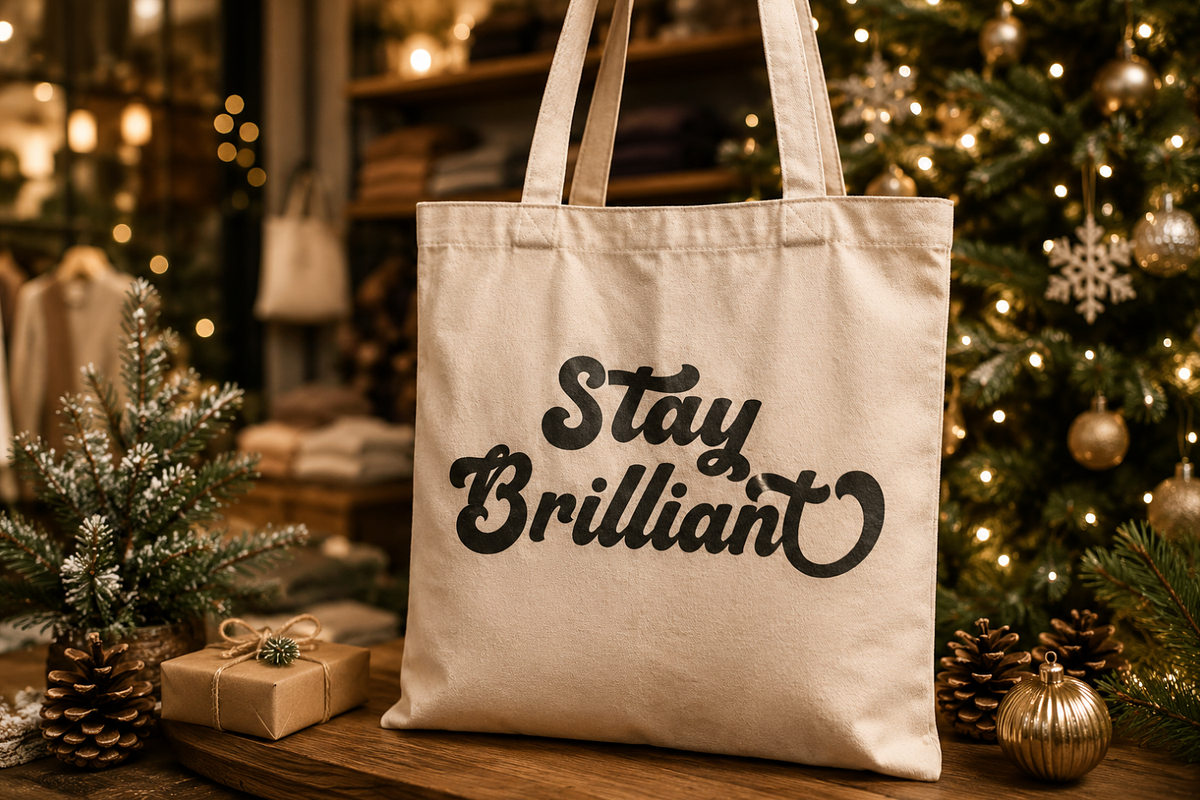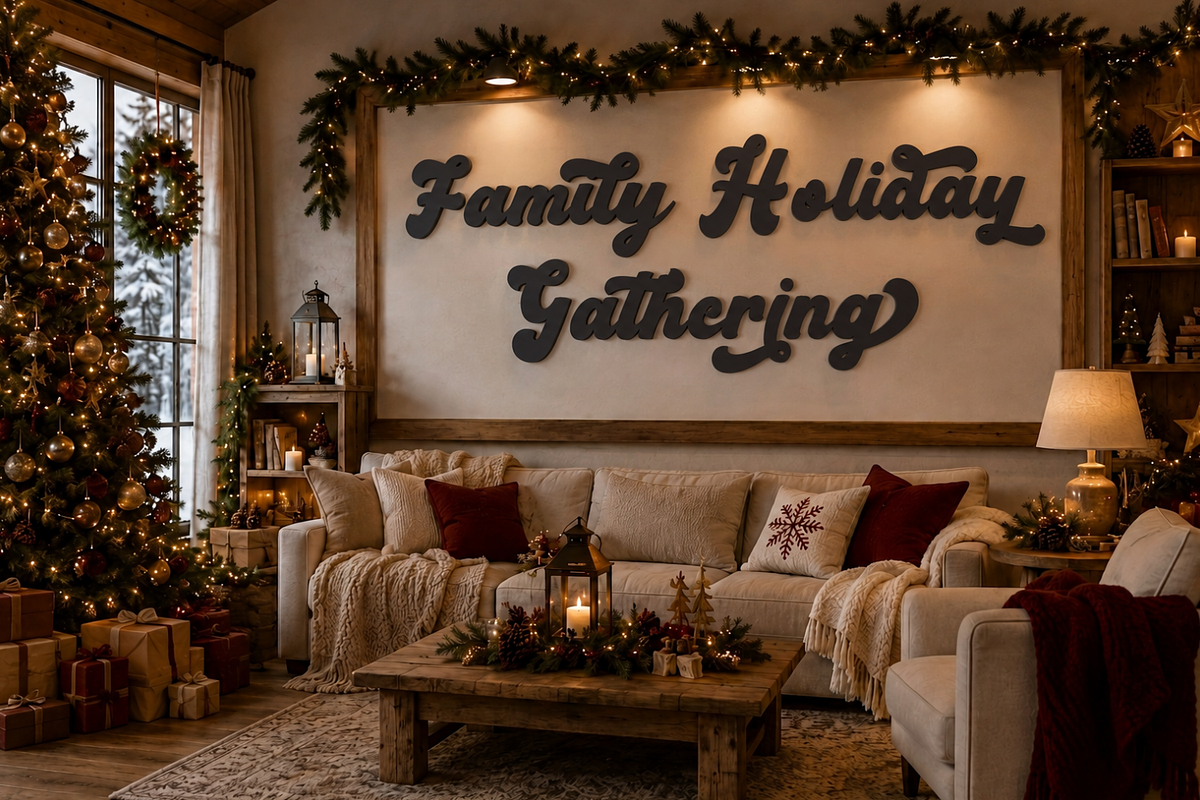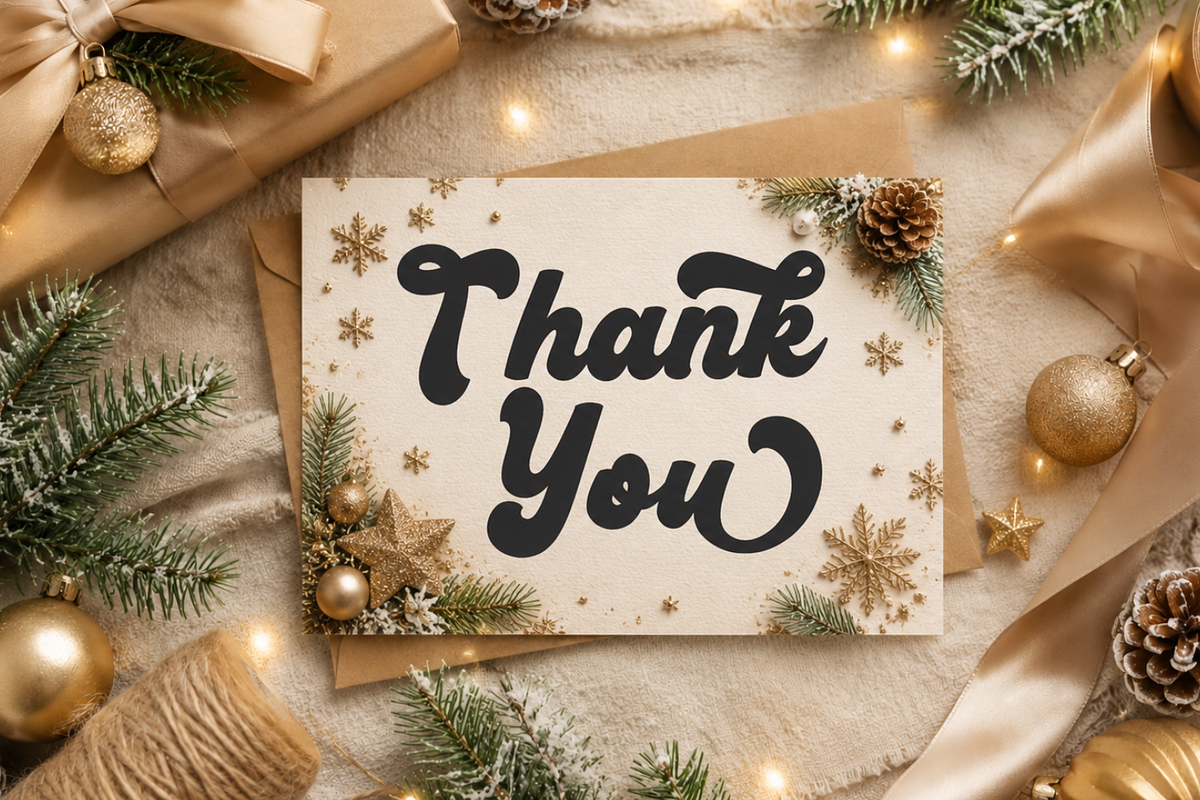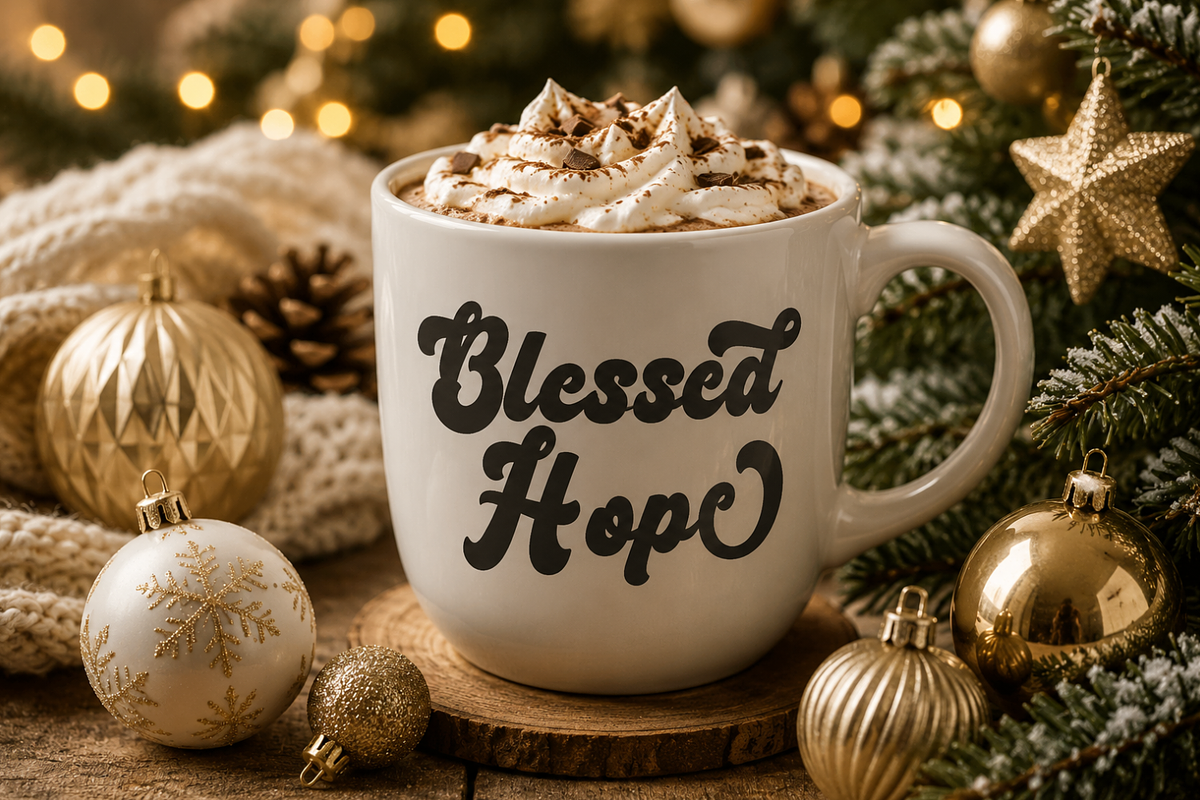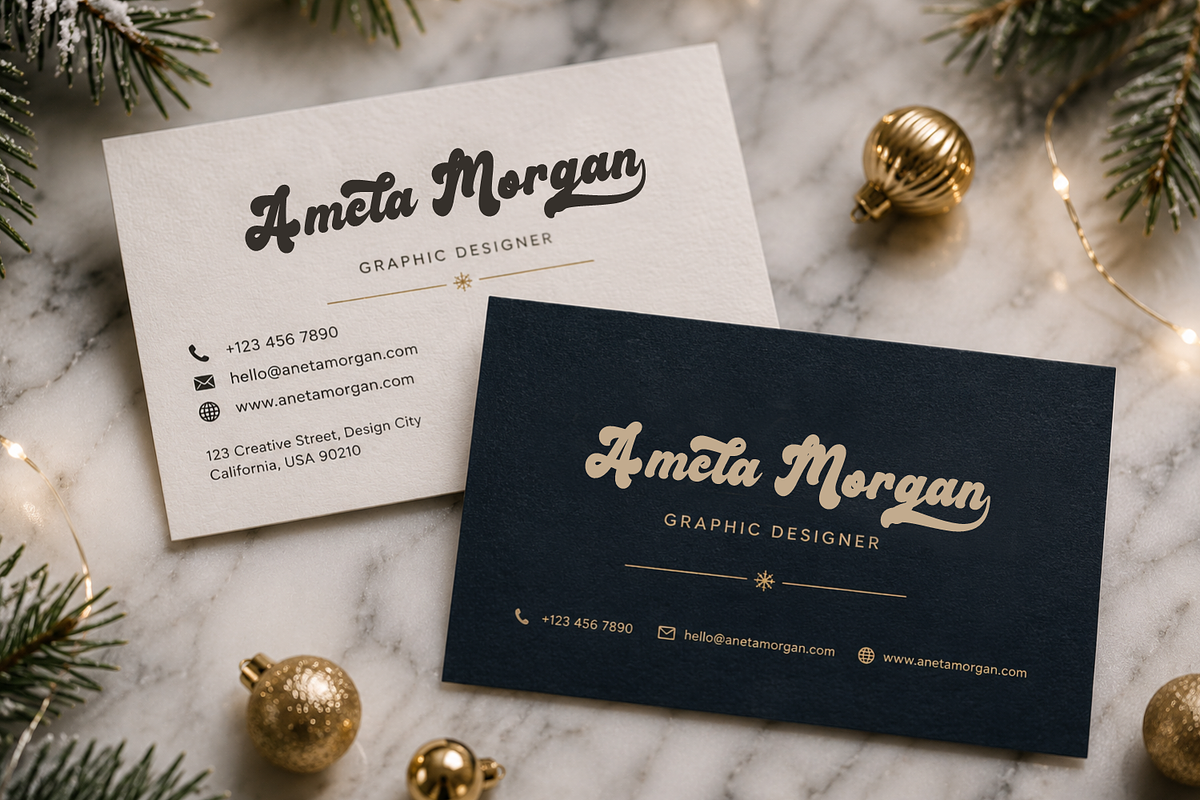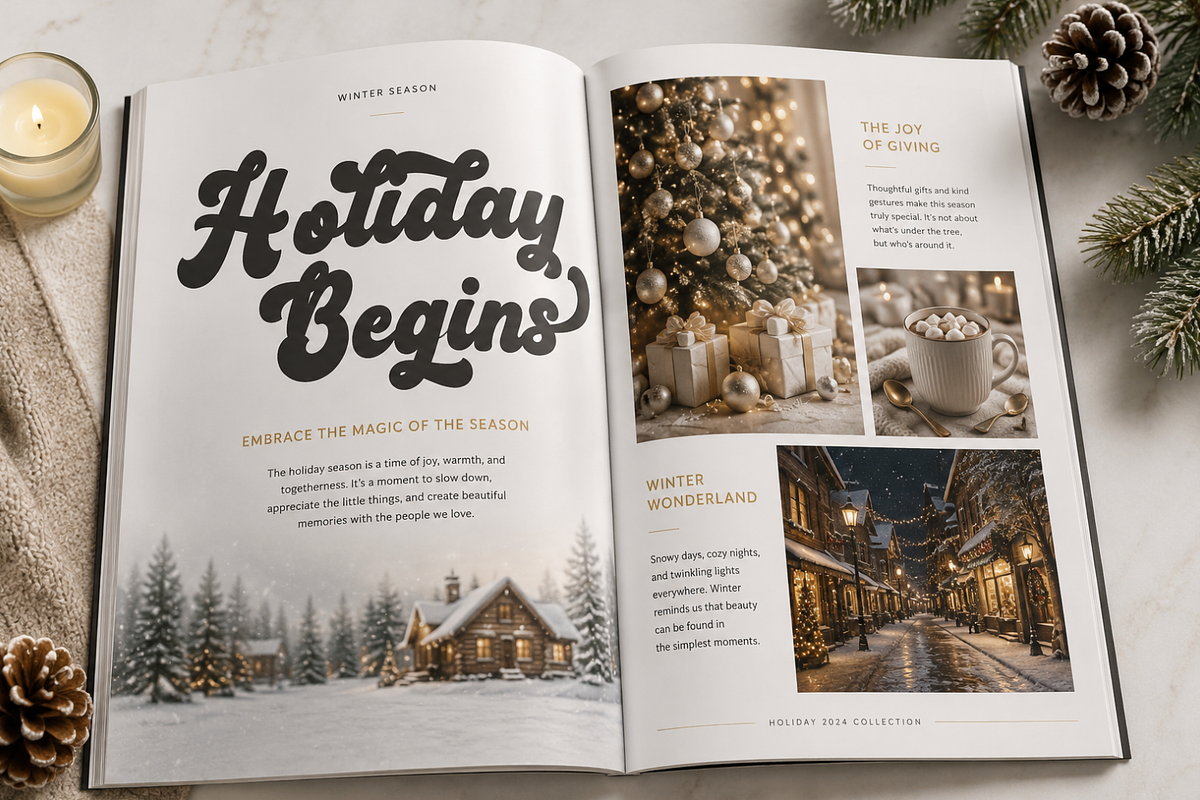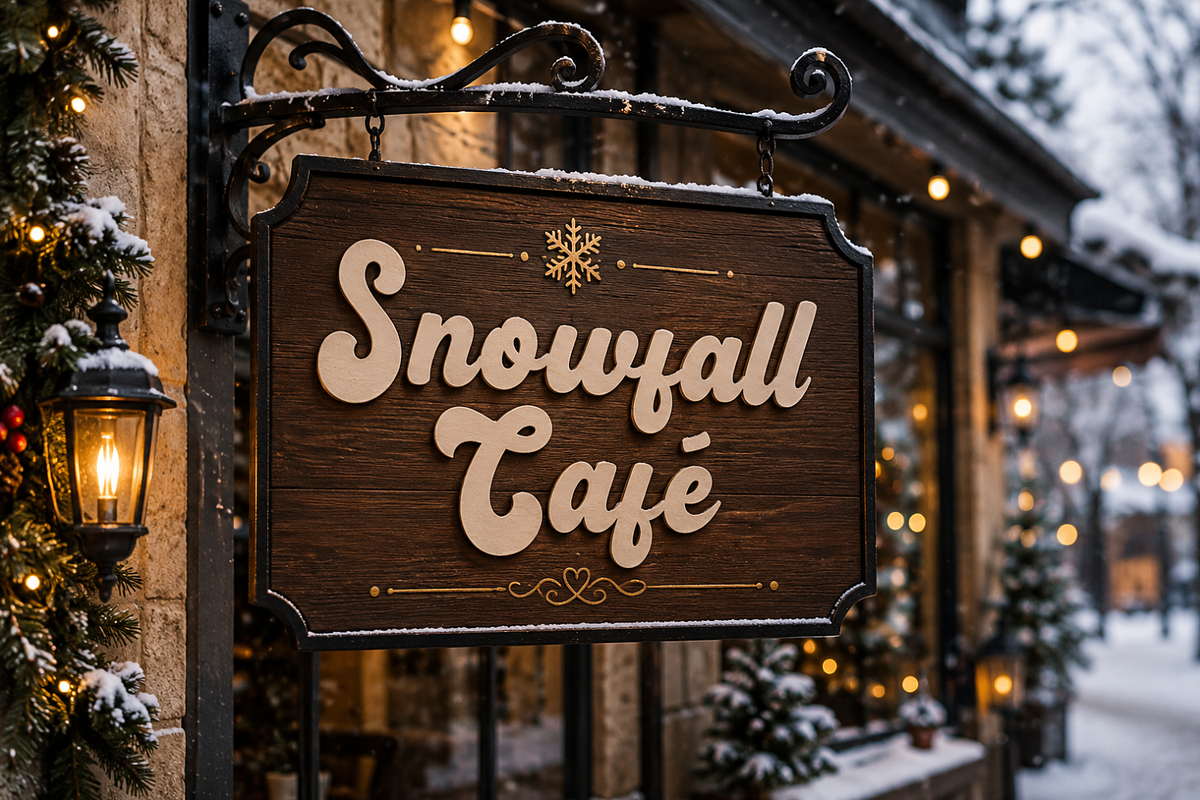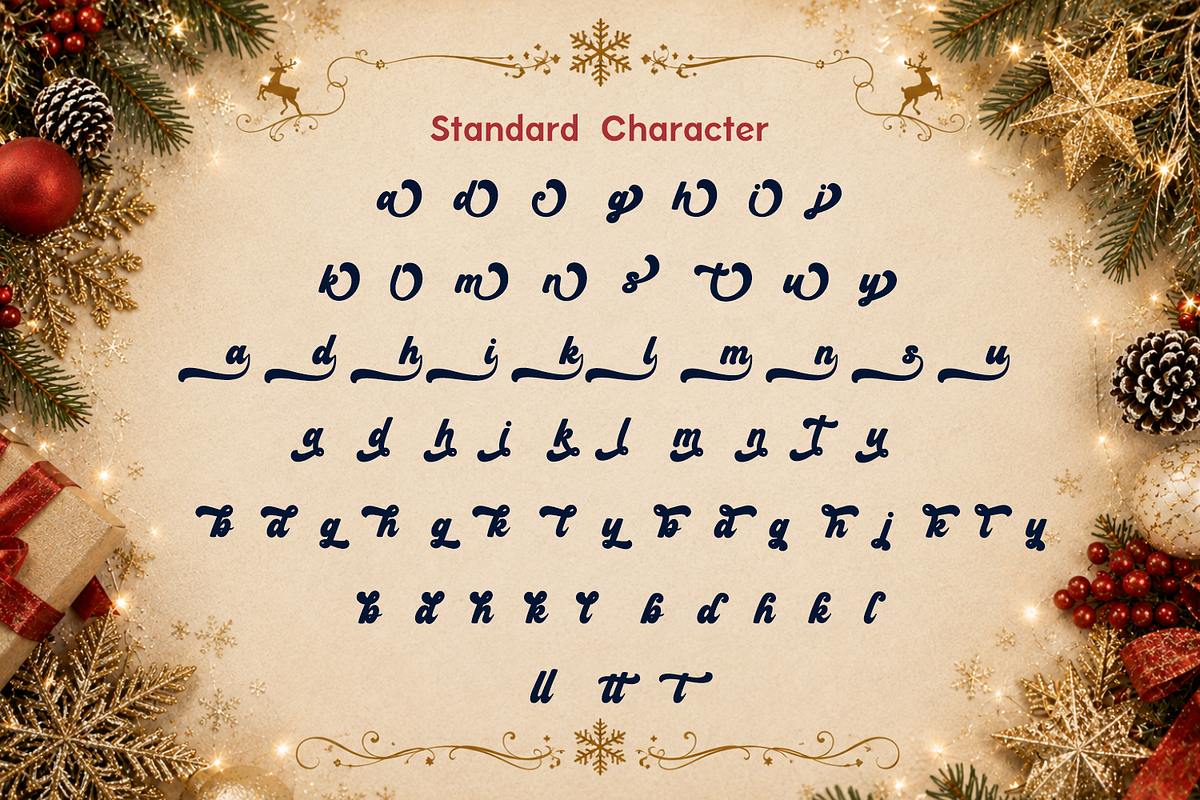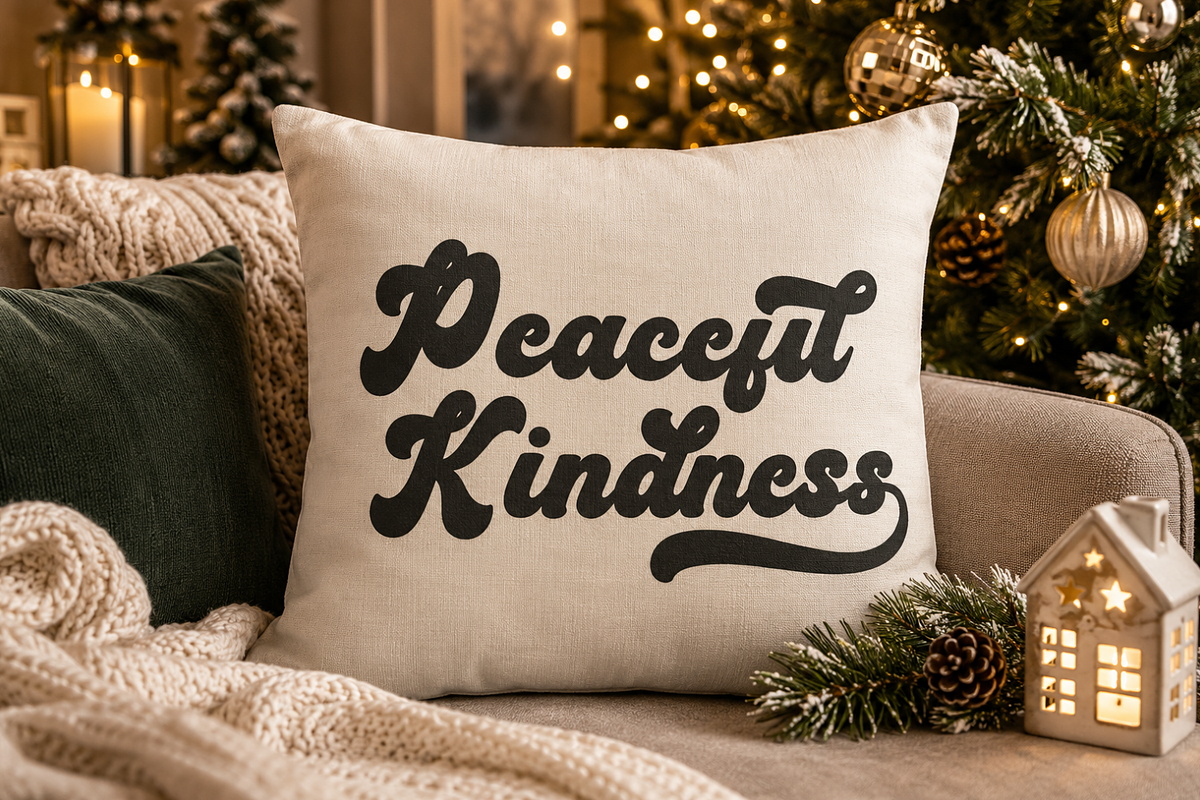
Holiday Fantasy – Christmas Font
Holiday Fantasy – Festive Christmas Font
Holiday Fantasy is a festive Christmas font designed to bring warmth, joy, and magical holiday spirit to every creative project. Featuring playful letterforms with charming seasonal character, this font captures the excitement of Christmas celebrations while adding a cheerful and memorable touch to your designs.
Crafted with a whimsical and decorative style, Holiday Fantasy combines festive elegance with excellent readability. Every letter is carefully designed to create typography that feels joyful, cozy, and inviting, making it perfect for both traditional and modern holiday-themed projects.
Inspired by snowy winter landscapes, sparkling Christmas lights, festive decorations, and magical holiday moments, Holiday Fantasy delivers a delightful personality that instantly enhances seasonal designs. Its unique character adds warmth and imagination while maintaining a clean and balanced appearance.
Holiday Fantasy is ideal for a wide variety of Christmas and winter-inspired projects, including greeting cards, invitations, gift tags, holiday packaging, seasonal branding, posters, social media graphics, and festive advertising materials. Whether you're designing for personal celebrations or commercial campaigns, this font creates a magical holiday atmosphere.
The font also performs beautifully in craft and DIY projects such as Cricut creations, SVG designs, stickers, ornaments, scrapbooking, handmade decorations, and custom merchandise. Whether used in print or digital media, Holiday Fantasy brings festive charm and joyful personality to every creation.
Festive Christmas Style Playful and decorative letterforms inspired by the holiday season.
Magical & Cheerful Design Creates warm, joyful, and memorable holiday typography.
Clean & Readable Balanced letterforms that remain clear while maintaining festive character.
Versatile Holiday Applications Perfect for both personal and commercial seasonal projects.
Craft-Friendly Design Ideal for Cricut, SVG, DIY crafts, and handmade decorations.
Multilingual Support Extended character set for international creative projects.
• Christmas & Holiday Designs • Winter-Themed Projects • Greeting Cards & Invitations • Gift Tags & Labels • Holiday Packaging • Posters & Seasonal Promotions • Social Media Graphics • Christmas Party Decorations • Cricut & DIY Craft Projects • Stickers & Scrapbooking • Seasonal Branding & Merchandise
Create Magical Holiday Designs
If you're looking for a font that captures the joy, warmth, and enchanting spirit of the holiday season, Holiday Fantasy is the perfect choice. Its festive personality and playful charm help create designs that feel cozy, magical, and unforgettable.